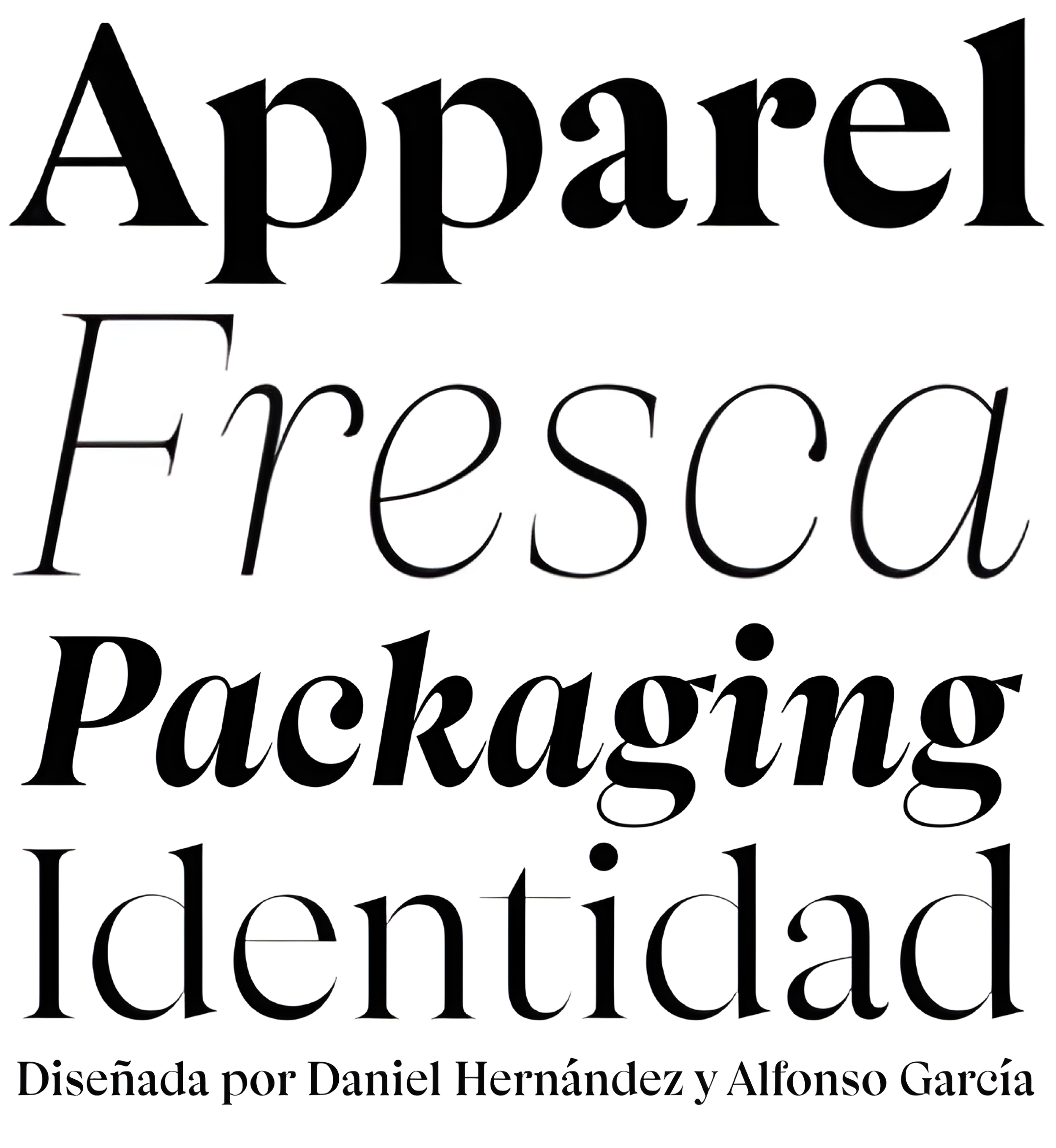
| Descripción | Inspired by the MacFarland series in the 1912 ATF catalog, Apparel is a typeface that shares similar functional characteristics with Times New Roman and Caslon fonts yet it has its own personality: A great choice for high-impact design. |